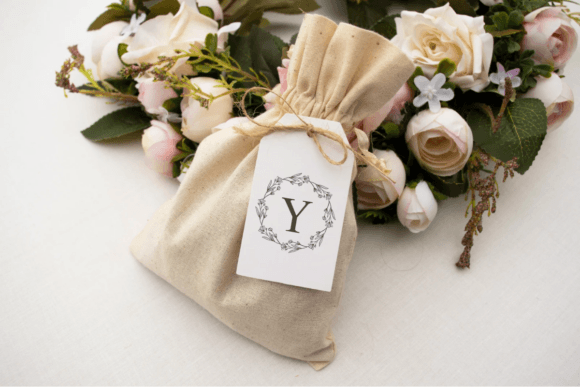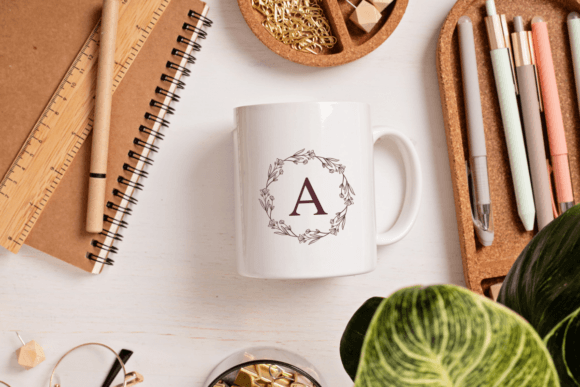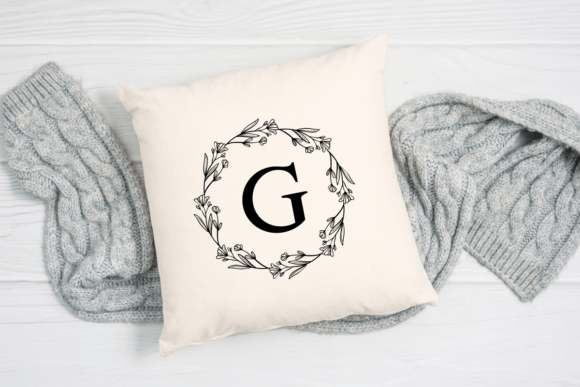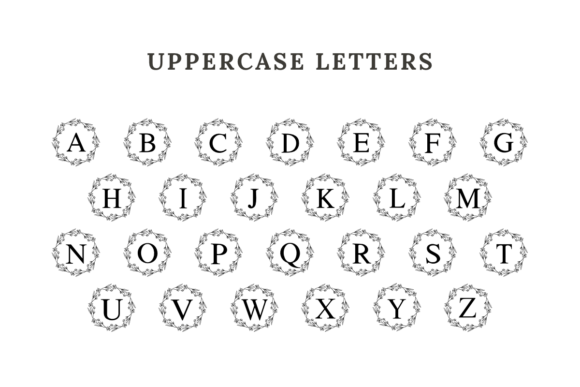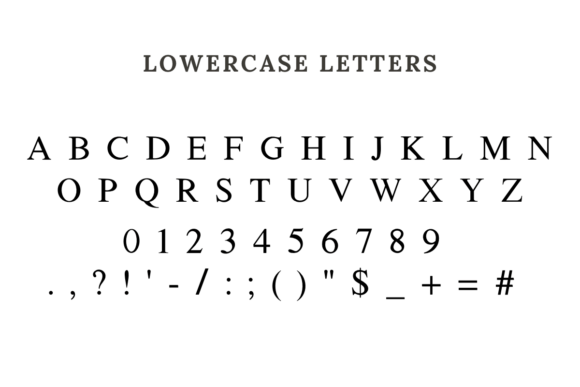
Introduction to Nature Wreath Monogram Font Font
Fonts play a crucial role in design, and the Nature Wreath Monogram Font font is a typeface that brings both character and versatility to any project. Whether you’re working on a branding project, a website, or a print design, the Nature Wreath Monogram Font font offers a unique style that can elevate your work.
| 📌 Font Name | Nature Wreath Monogram Font |
| 👤 Author | Nun Sukhwan |
Nature Wreath Monogram is a decorative font that features elegant letters surrounded by beautiful flower and leaf frames.
Perfect for invitations, logos, and crafts, it adds a natural and stylish touch to any design .
Key Features of Nature Wreath Monogram Font Font
Why Choose Nature Wreath Monogram Font Font?
The Nature Wreath Monogram Font font is more than just a typeface – it’s a design tool that helps you communicate your message with style and clarity. Its unique character set and versatile design make it suitable for a wide range of applications, from elegant invitations to bold headlines.
With its carefully crafted letterforms and balanced proportions, the Nature Wreath Monogram Font font ensures readability and visual appeal across all mediums.
What makes Nature Wreath Monogram Font font special?
The Nature Wreath Monogram Font font stands out with its unique design, exceptional readability, and versatility across various design applications.